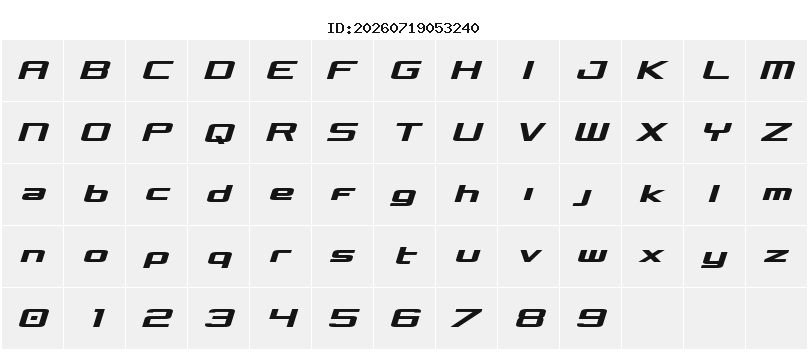
Concielian Bold Semi-Italic Preview
• Font Name: Concielian Bold Semi-Italic
• Font Style: Bold Semi-Italic
• Full Font Name: Concielian Bold Semi-Italic
About Concielian Bold Semi-Italic.ttf
Concielian Bold Semi-Italic.ttf is a modern, elegant sans-serif font designed for ultimate readability and visual harmony. Perfect for branding, headlines, web design, and print materials.